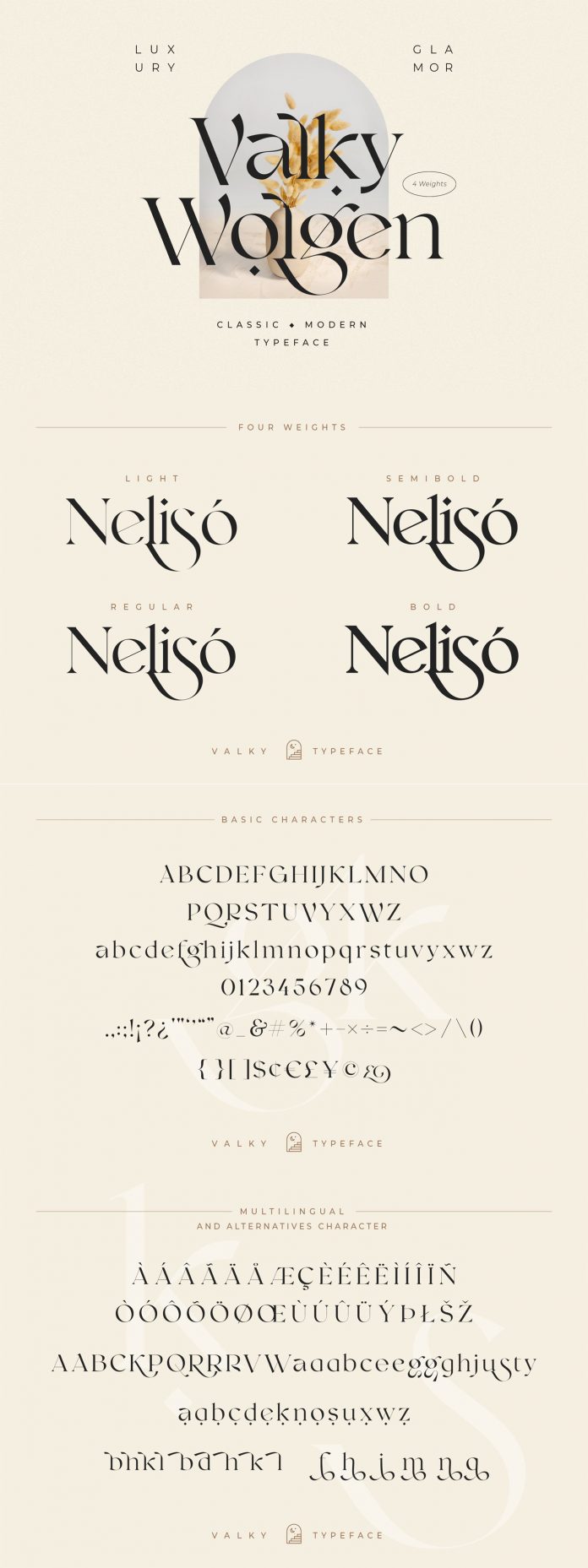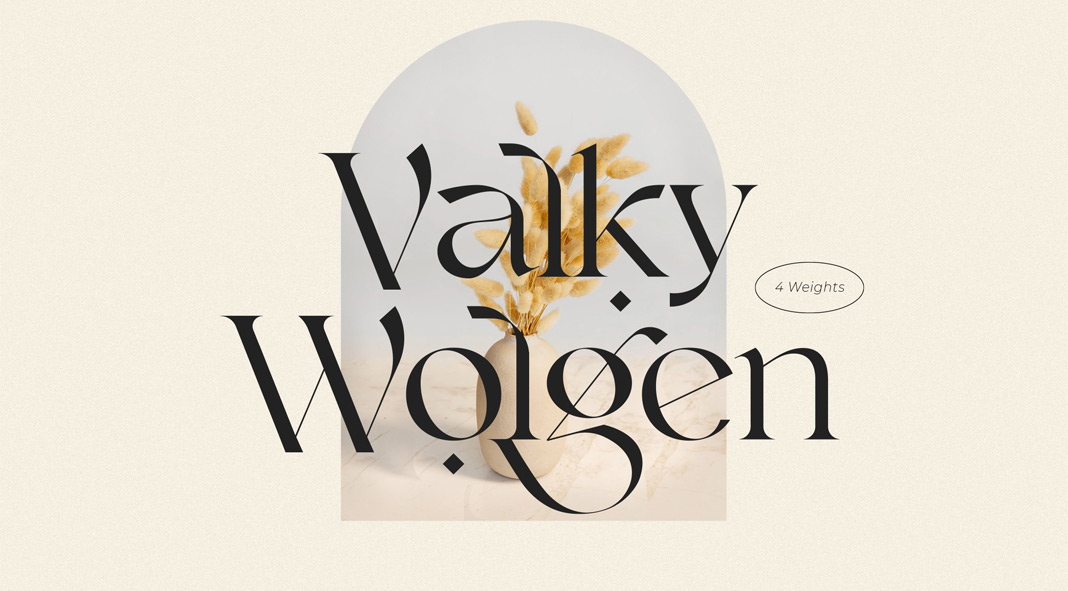
Valky font, a classic modern typeface by NEWFLIX.Bro.
Published just recently by the creative team of NEWFLIX.Bro, Valky is a unique modern typeface that draws inspiration from lovely vintage serif typefaces. It comes with a wide range of beautiful ligatures as well as plenty of special alternative glyphs and ornaments. Valky’s extensive character set supports multiple languages. This versatile typeface is equipped with four weights ranging from light to bold. It works great in large and small sizes. Valky is a good choice for editorial projects, logo design, clothing, branding, packaging, magazine headlines, etc.